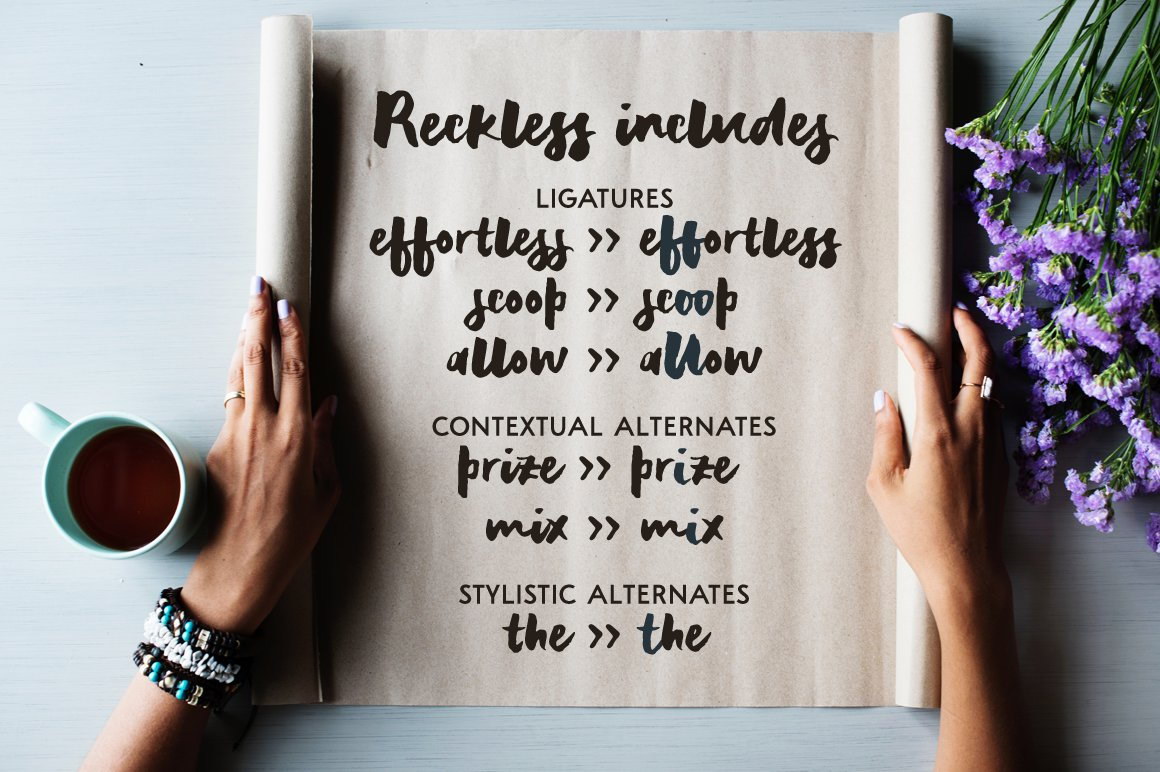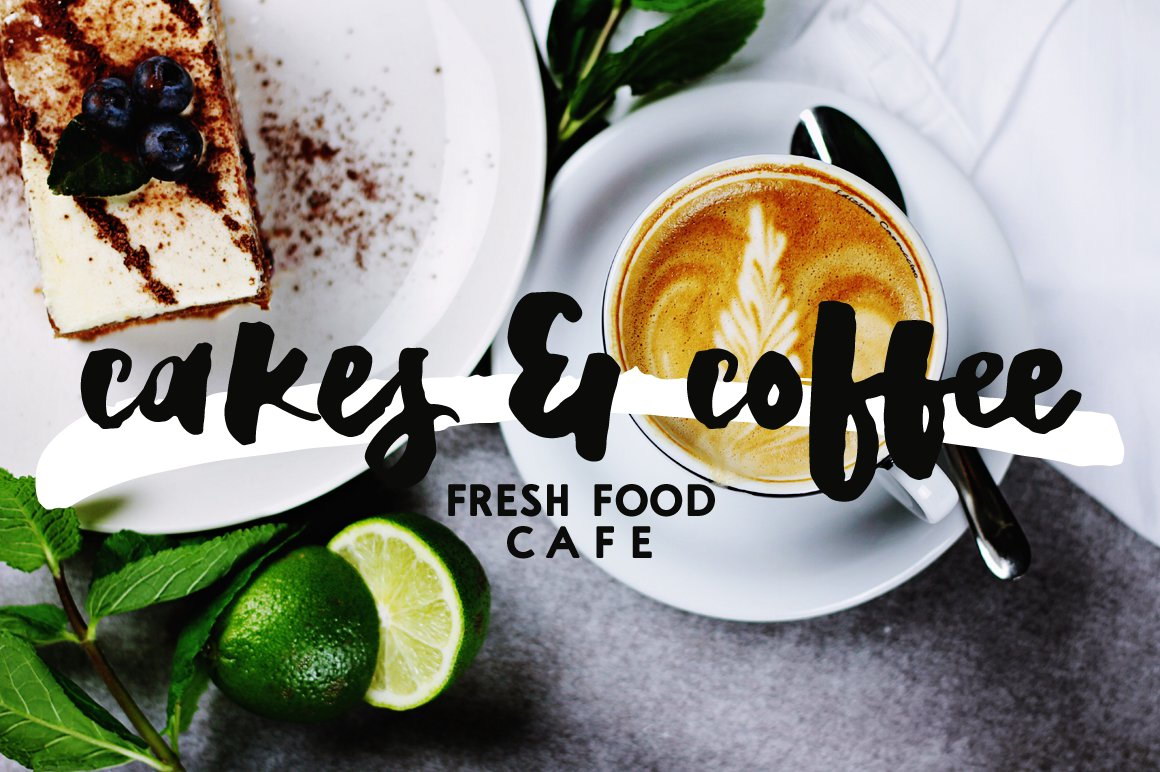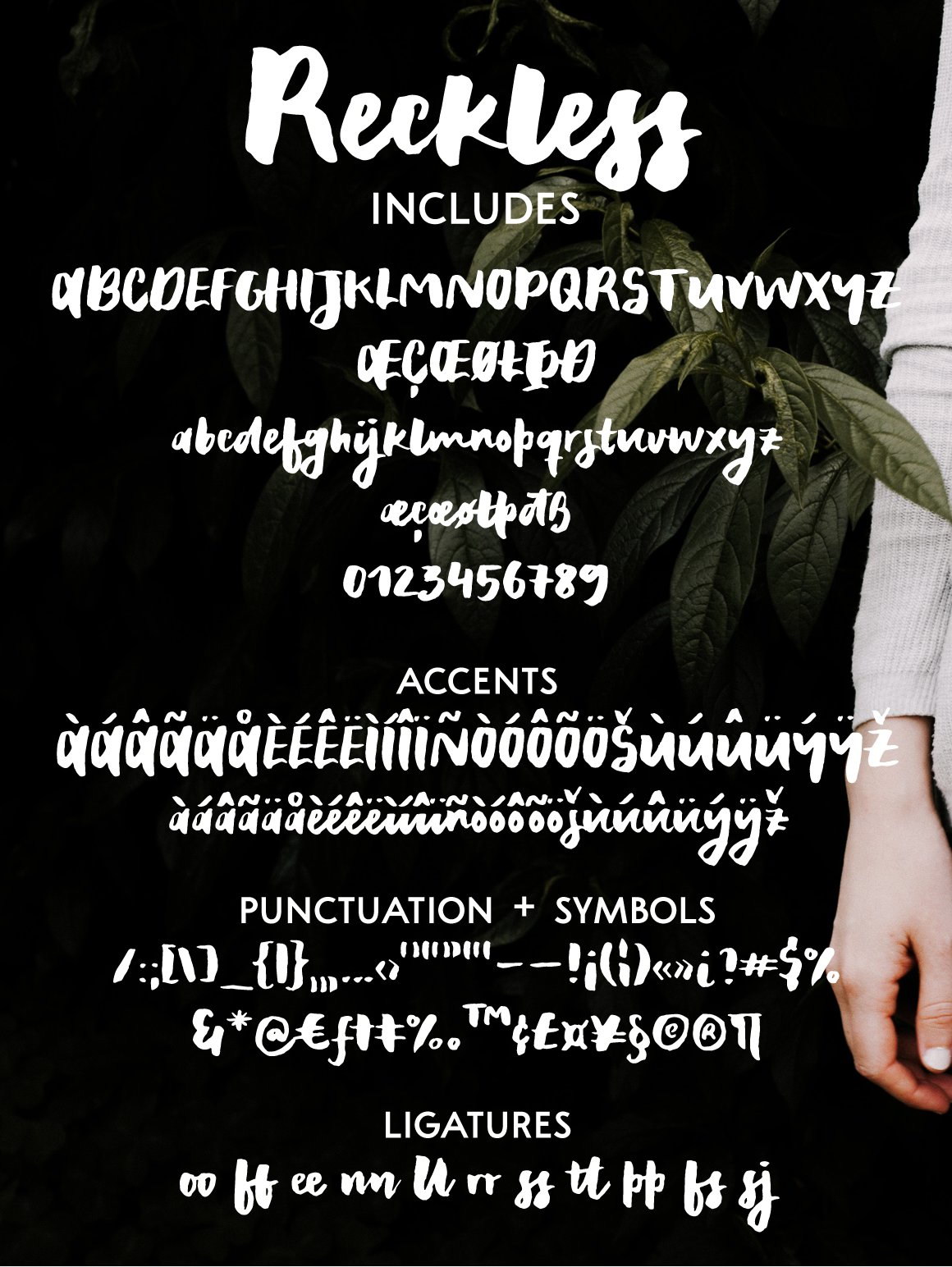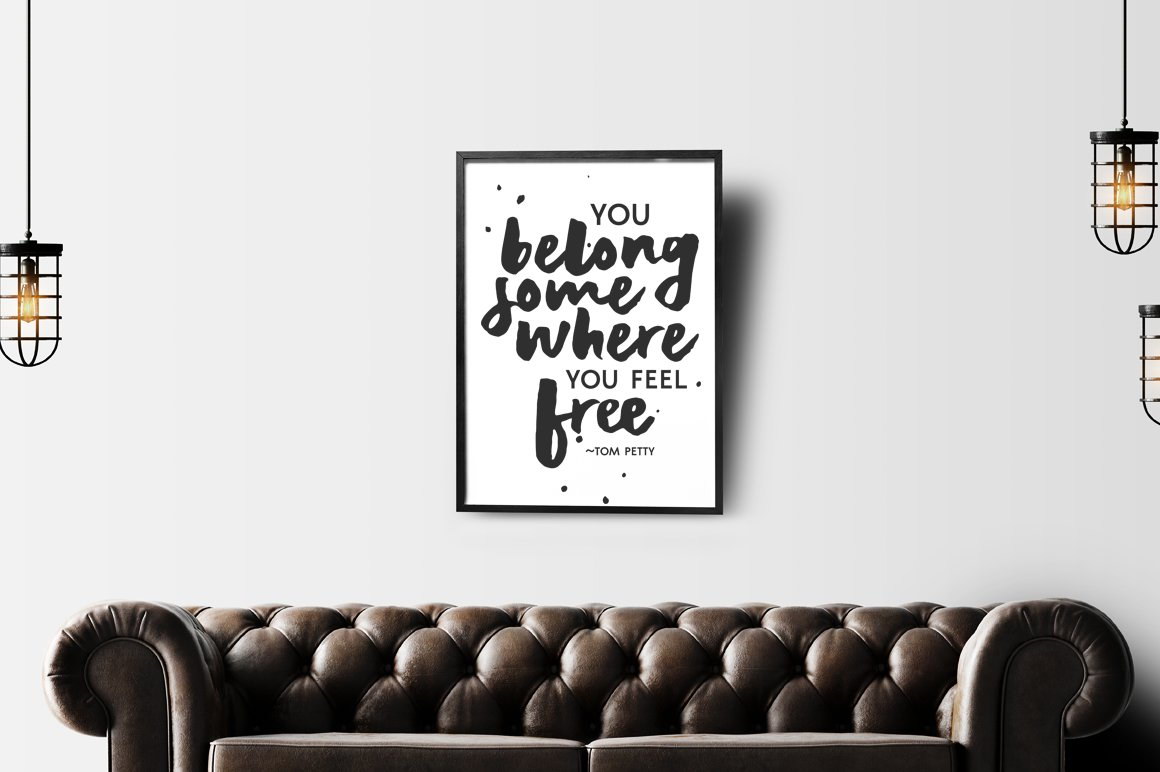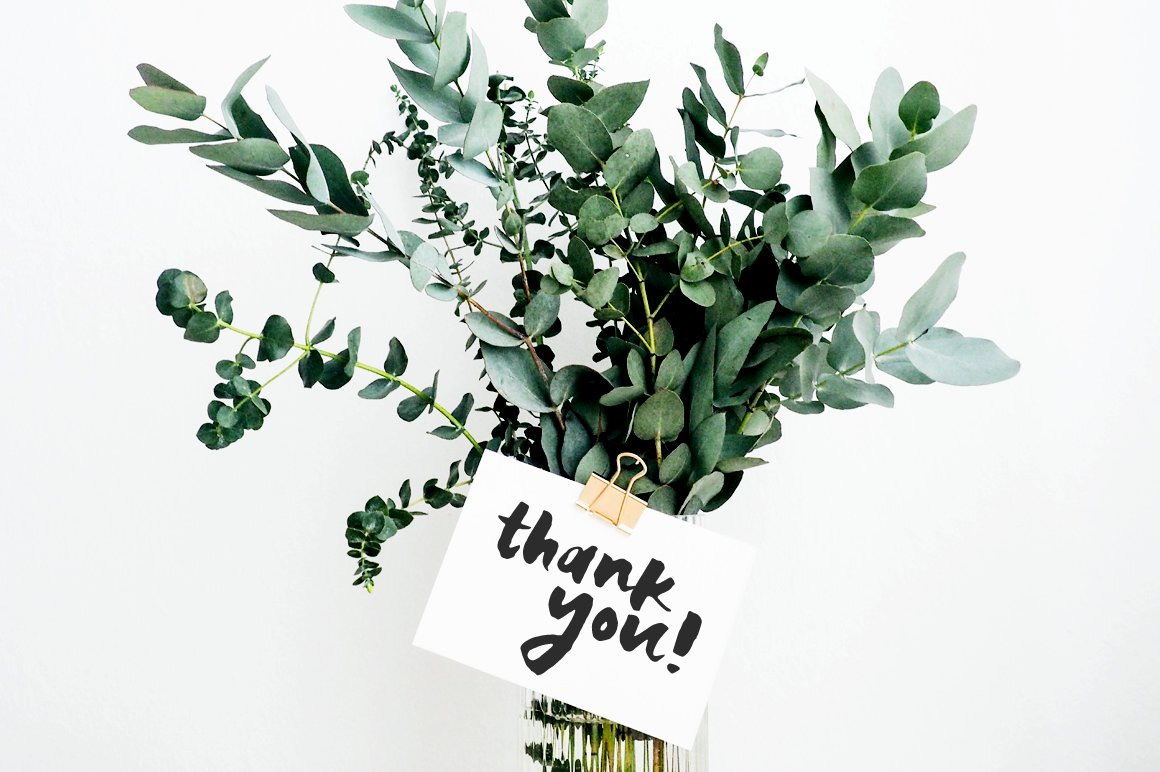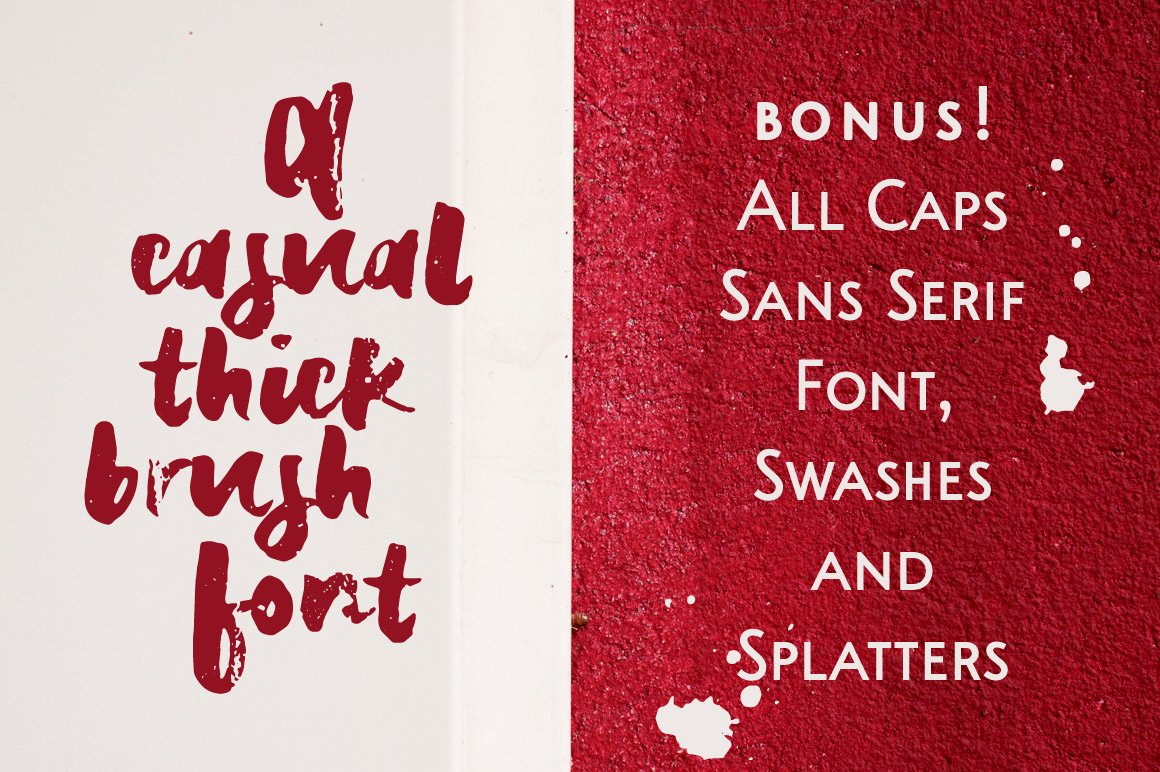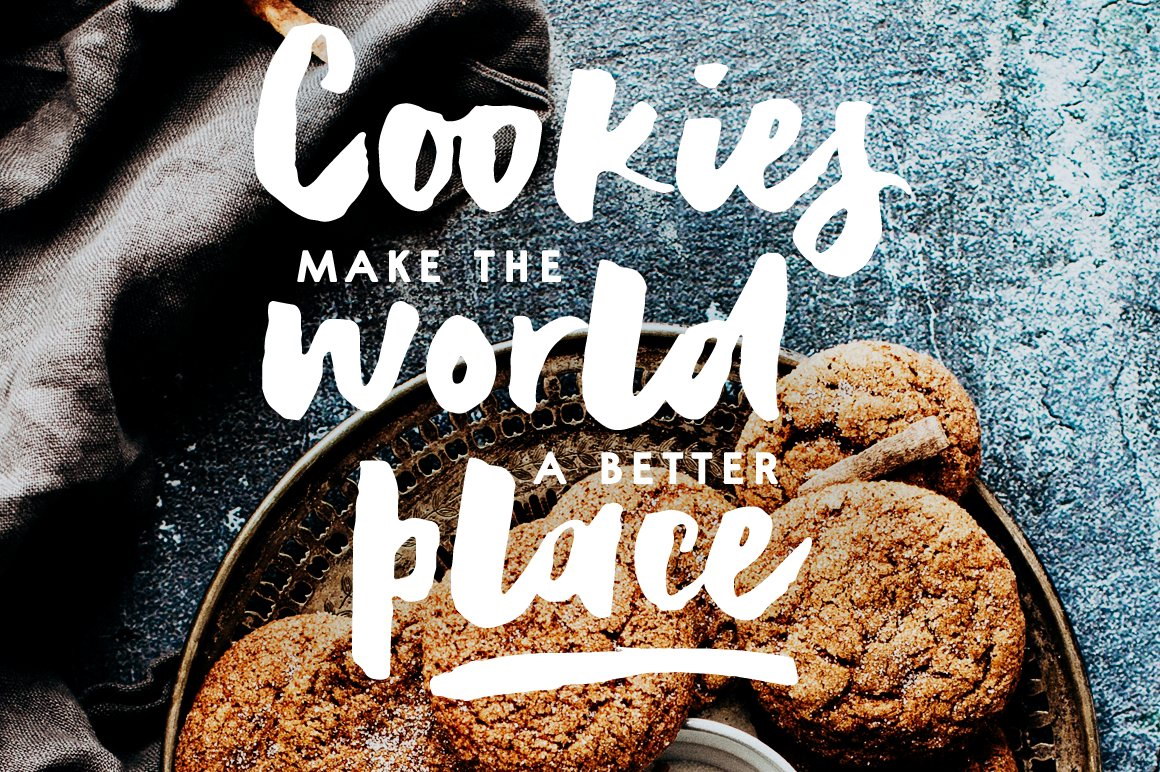
Reckless Brush is a bold, expressive brush script font with a casual, hand-painted feel. Its irregular strokes and organic forms make it perfect for creative, informal designs that need energy and personality. This font works great for eye-catching headlines, logos, and packaging that want to convey a youthful, artistic vibe.
Reckless Brush Font
About Reckless Brush Font
| Designer | Ana Parracho |